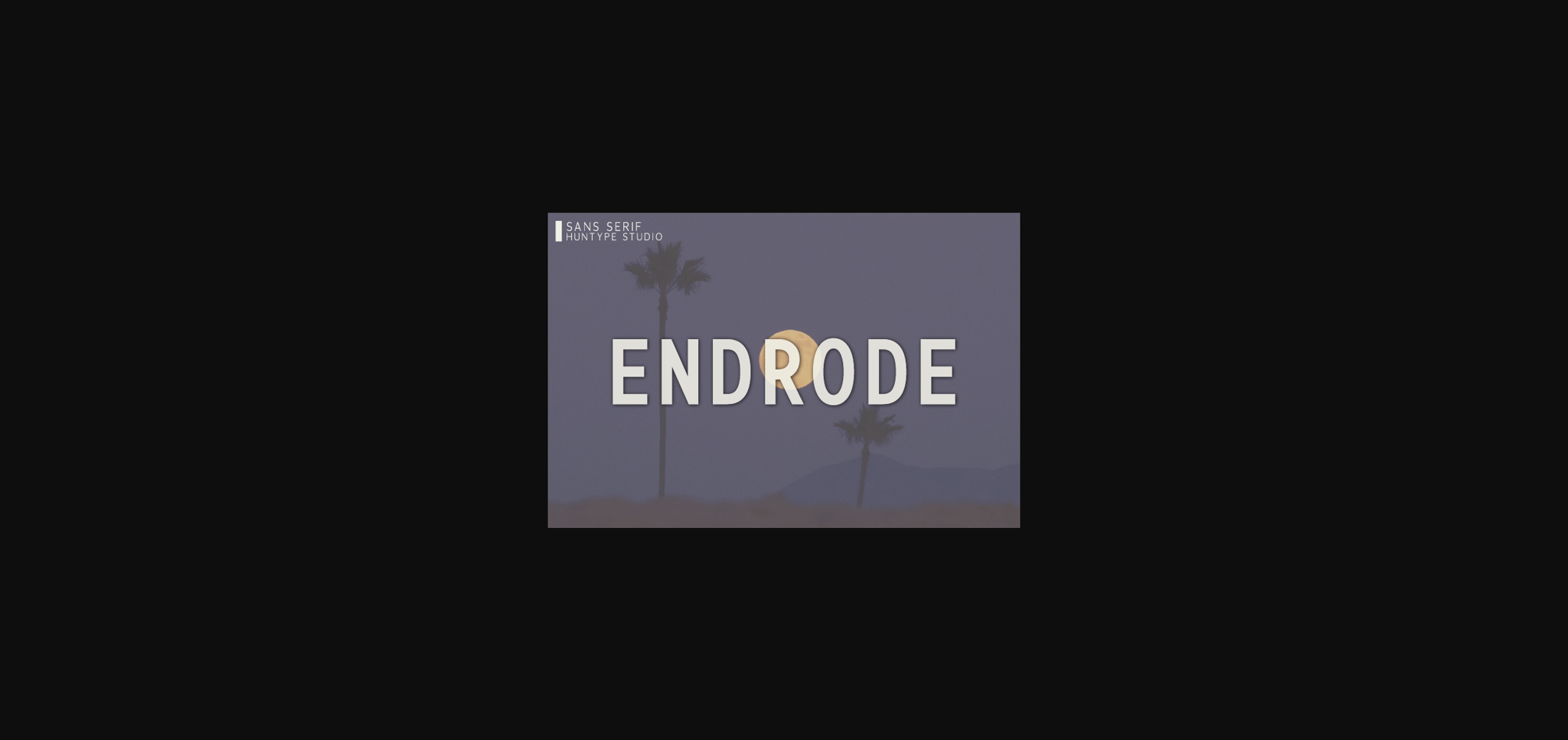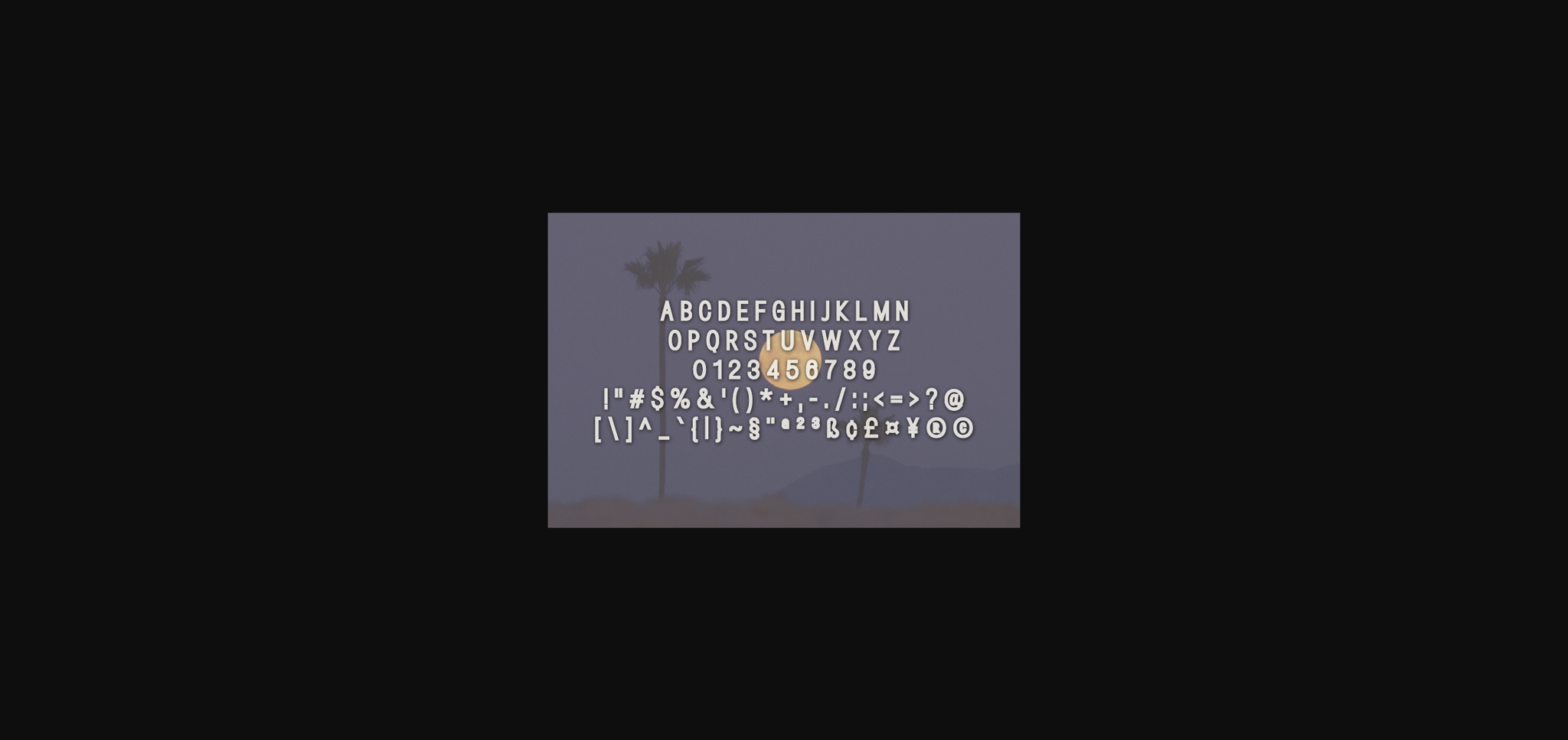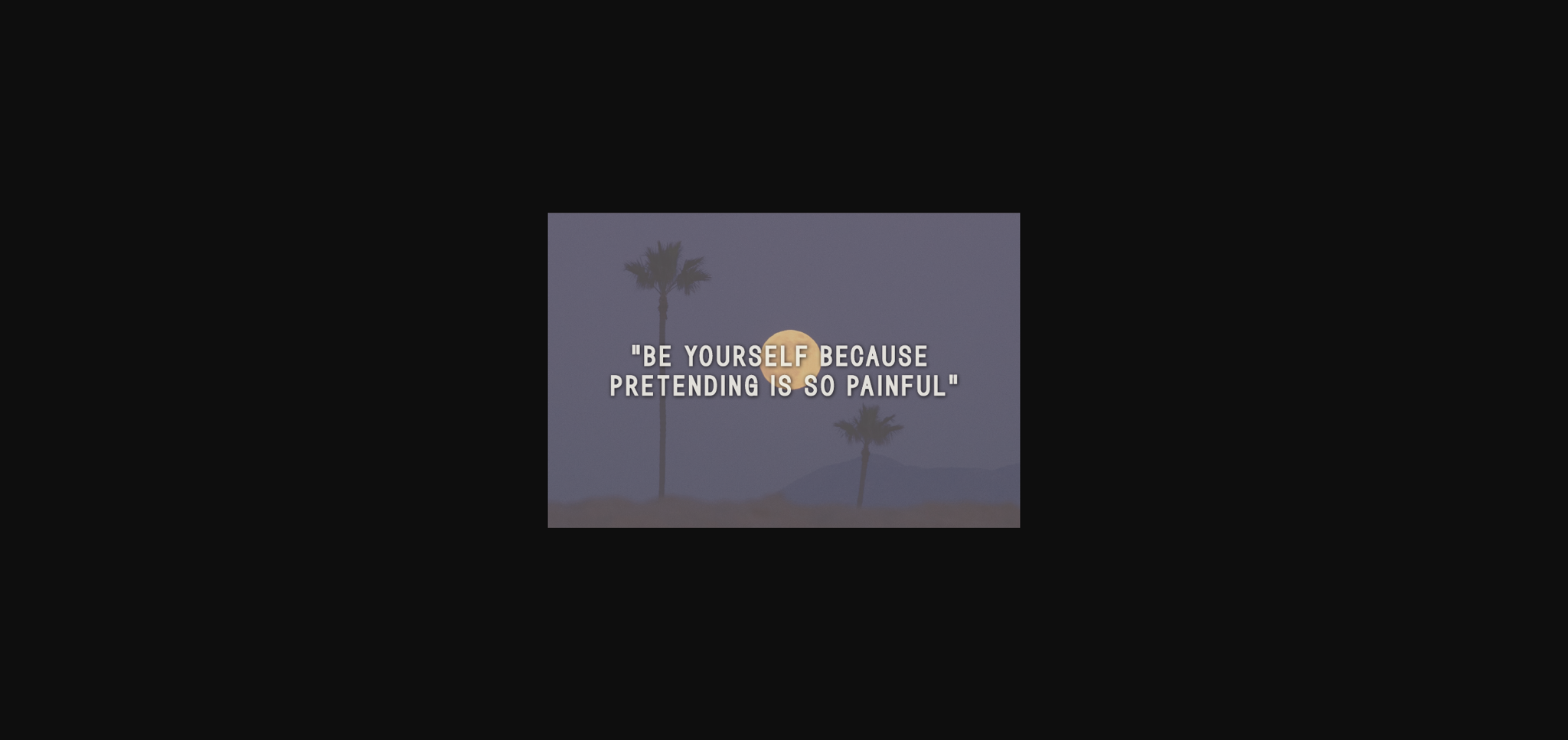
About Endrode Font
Endrode is a minimal and neat sans serif font. It can easily be matched to an incredibly large set of projects, so add it to your creative ideas and notice how it makes them stand out!